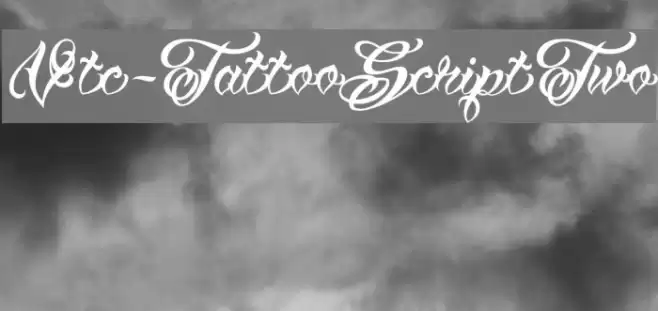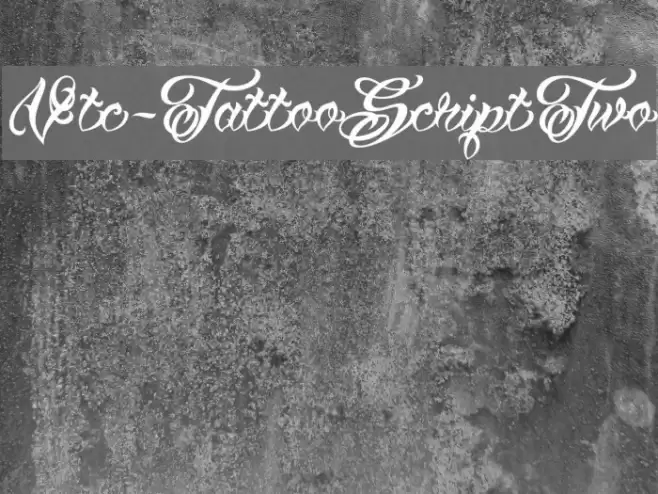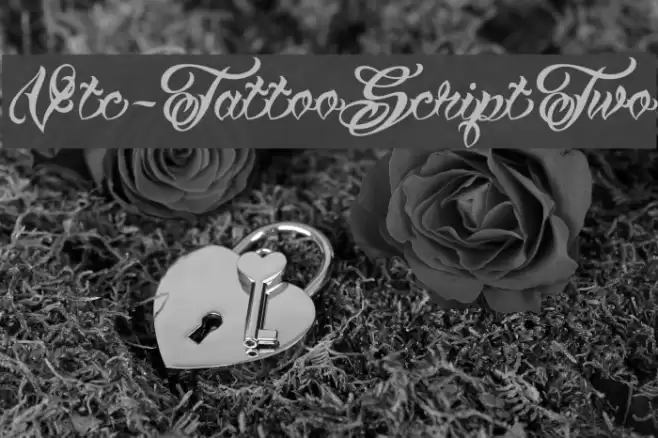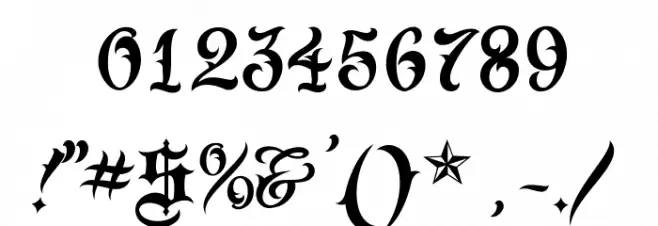
Vtc-TattooScriptTwo Font
Vtc-TattooScriptTwo Description
This font features an elaborate and intricate design, characterized by its ornate and flowing script style. The uppercase letters are highly decorative, with swirling embellishments that give them a tattoo-like appearance. The lowercase letters maintain a cursive style, though they are slightly less ornate than their uppercase counterparts. The numbers are bold and maintain the decorative theme, with unique flourishes that add to the overall aesthetic. Special characters are equally stylized, fitting seamlessly with the rest of the font. This font is ideal for projects that require a bold and artistic touch, making it perfect for tattoo designs, logos, and creative headlines.
An ornate, tattoo-inspired script font with decorative flourishes from Uncategorized fonts.
- Proposed Projects: Ideal for tattoo designs, artistic logos, and creative headlines.
- Use Case: Logos, Headlines